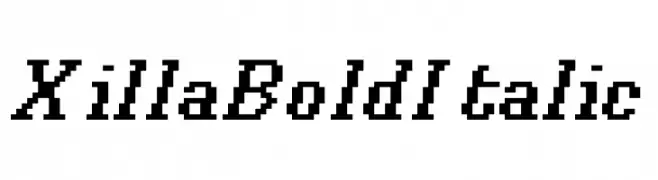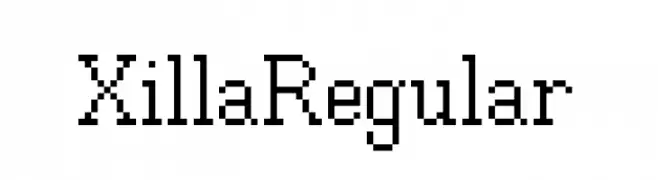
( This is a font from the game "Super Filly Adventure" )
A pixelated, blocky font inspired by retro digital displays.
A dot-matrix style font with a retro digital appearance.
A pixelated, monospaced font with a retro digital aesthetic.
A pixelated, retro-style font inspired by early digital displays.
A bold, italicized, pixelated font with a retro digital aesthetic.
A pixelated, grid-based font with a retro digital aesthetic.
A pixelated, italic font with a retro digital aesthetic.
A pixelated, blocky font with a retro digital style.
A pixelated, retro-style font with a blocky, digital appearance.